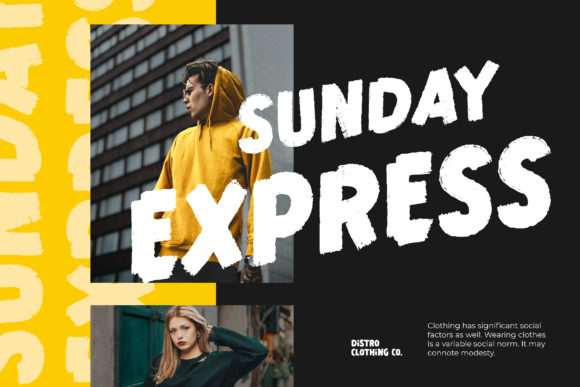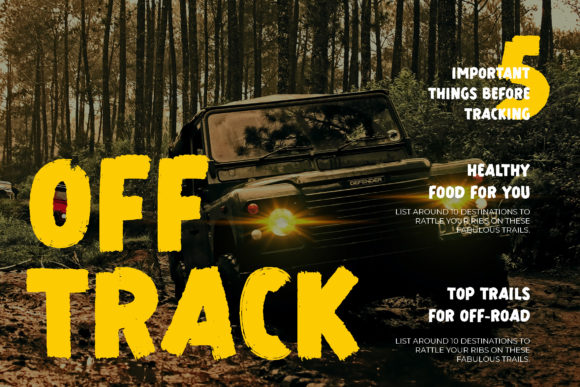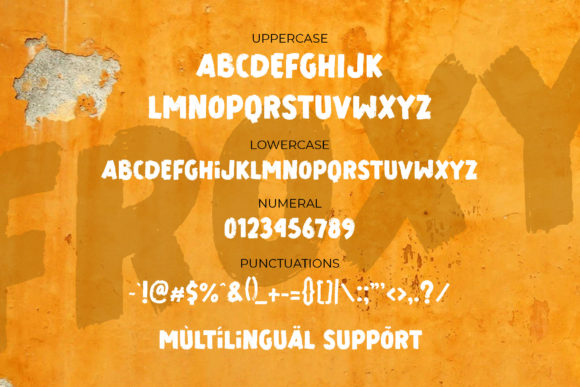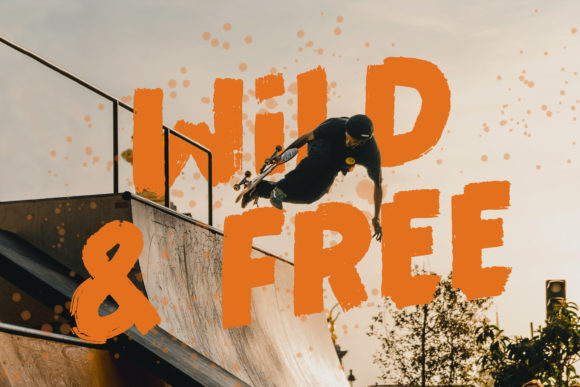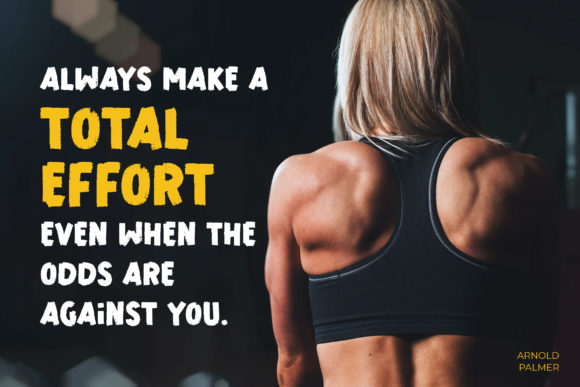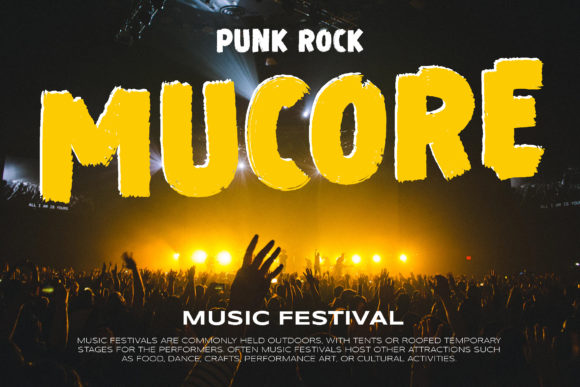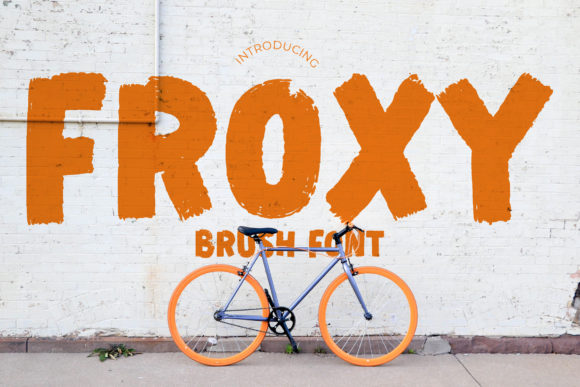
Froxy Font: Elevate Your Designs with a Brushed and Thick Lettered Display Font
Are you tired of using the same old fonts in your designs? Do you want to add a touch of personality and uniqueness to your creations? Look no further than Froxy Font, a brushed and thick lettered display font that’s sure to take your designs to the next level. In this article, we’ll explore the features and benefits of Froxy Font, and why it’s a must-have for designers and crafters.
What is Froxy Font?
Froxy Font is a display font that’s characterized by its brushed and thick lettered design. The font has a rugged, textured look that’s perfect for creating eye-catching headlines, titles, and graphics. With its unique and distinctive style, Froxy Font is sure to add a touch of personality to any design.
Key Features of Froxy Font
- Brushed and Thick Lettered Design: Froxy Font features a brushed and thick lettered design that’s perfect for creating bold and eye-catching graphics.
- Display Font: Froxy Font is a display font that’s designed to make a statement. It’s perfect for use in headlines, titles, and other prominent design elements.
- Versatile: Despite its bold and distinctive style, Froxy Font is surprisingly versatile. It can be used in a wide range of design contexts, from posters and flyers to logos and branding materials.
- Easy to Read: Despite its thick and brushed design, Froxy Font is surprisingly easy to read. This makes it perfect for use in designs where you want to make a bold statement, but still need to communicate a message clearly.
Benefits of Using Froxy Font
So why should you use Froxy Font in your designs? Here are just a few benefits of using this amazing font:
- Adds Personality to Your Designs: Froxy Font has a unique and distinctive style that’s sure to add a touch of personality to your designs.
- Perfect for Creating Eye-Catching Graphics: With its bold and brushed design, Froxy Font is perfect for creating eye-catching graphics that grab attention.
- Versatile: Froxy Font can be used in a wide range of design contexts, making it a great addition to any designer’s font library.
How to Use Froxy Font in Your Designs
Using Froxy Font in your designs is easy. Here are a few tips to get you started:
- Use it as a Headline Font: Froxy Font is perfect for use as a headline font. Use it to create bold and eye-catching headlines that grab attention.
- Pair it with Other Fonts: Froxy Font can be paired with other fonts to create a unique and interesting design. Try pairing it with a sans-serif font for a bold and modern look.
- Experiment with Different Colors: Froxy Font looks great in a wide range of colors. Experiment with different colors to find the one that works best for your design.
In conclusion, Froxy Font is a brushed and thick lettered display font that’s sure to elevate your designs. With its unique and distinctive style, Froxy Font is perfect for creating eye-catching graphics and adding a touch of personality to your designs. Whether you’re a designer or crafter, Froxy Font is a must-have font that’s sure to become a favorite in your font library.